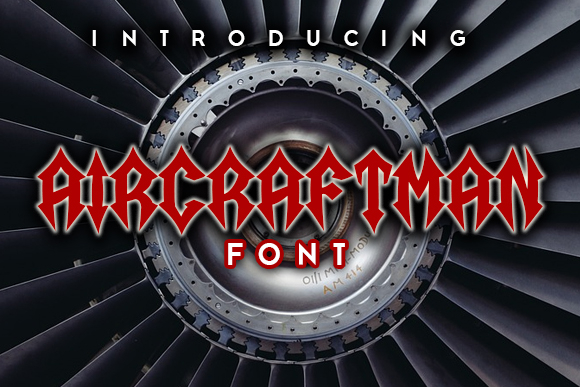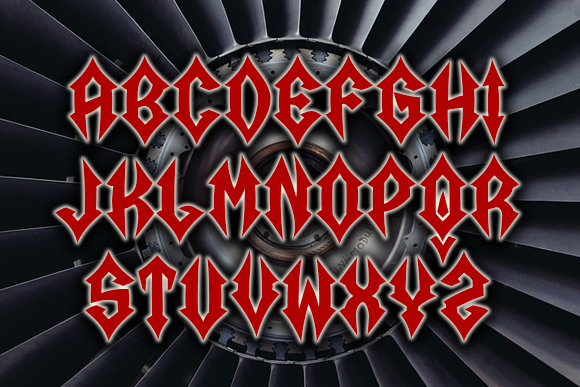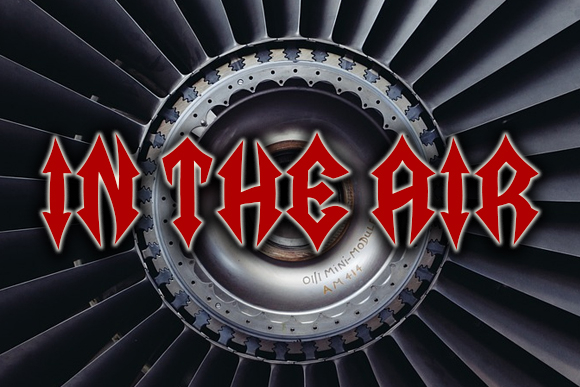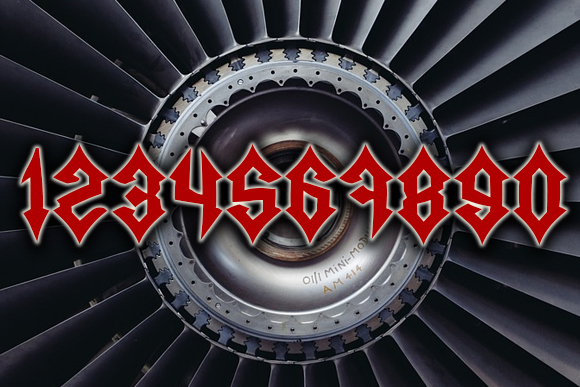
Aircraftman Font
About Aircraftman Font
Aircraftman is an edgy and sharp Gothic typeface that will look perfect on any of your projects. Use this font on banners, headlines, and much more.